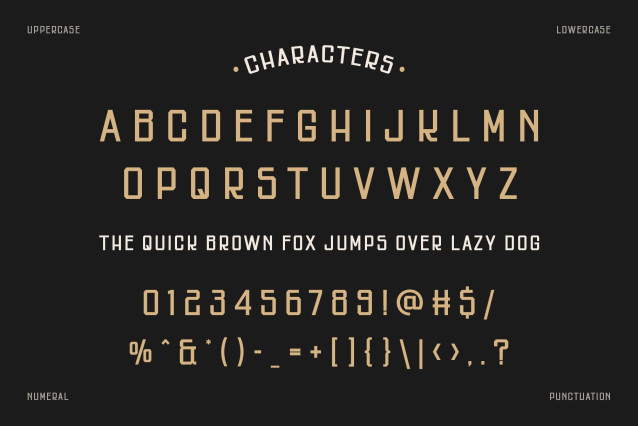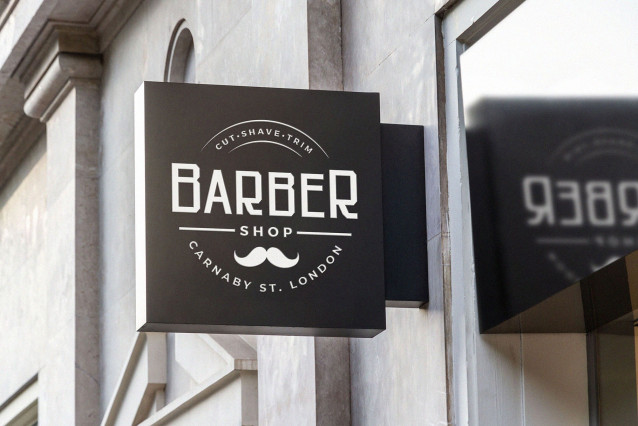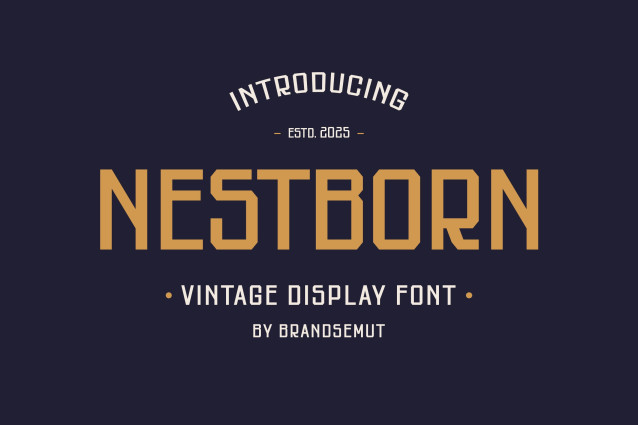
Nestborn Font
Nestborn Font is a vintage and simple font, best used as a display for headings, logos, branding, magazines, product packaging and invitations. Nestborn come with clean lines and smooth curves give any project an extra touch of class.